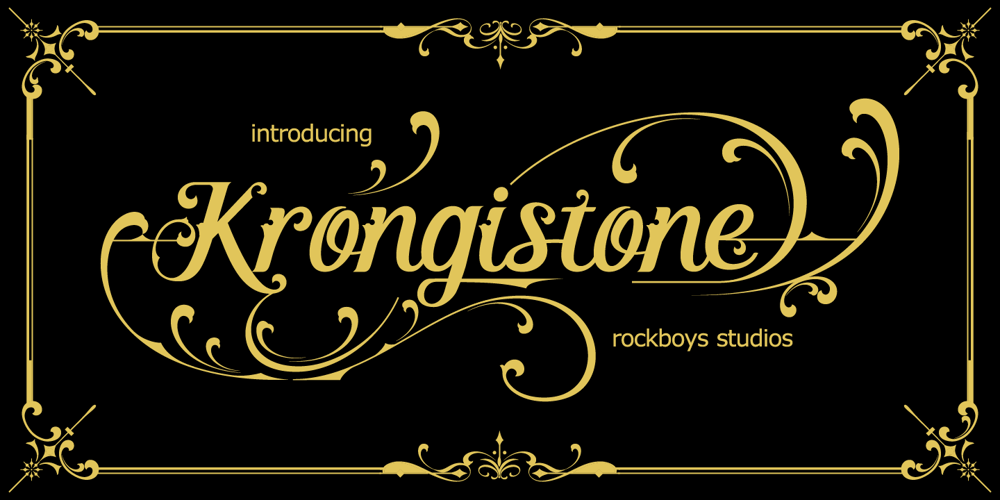
Krongistone Font Family was designed by Hayinah and published by Rockboys Studio. Krongistone contains 1 styles and family package options. Krongistone is a unique handwritten font. It includes elegant swashes which can be used to give a luxurious look to your designs. It can be used for various purposes such as logos, wedding invitations, headings, t-shirts, letterhead, signage, labels, news, posters, badges and so much more.